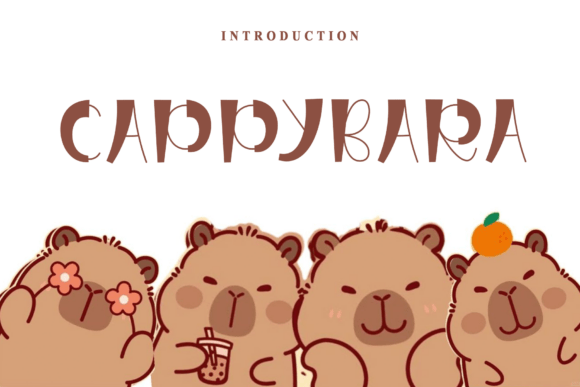
The Ultimate Guide to Cappybara Font: Elevate Your Designs with This Timeless Beauty
I’ll never forget the time I was working on a branding project for a trendy coffee shop. My client wanted a font that was both playful and sophisticated, but I was struggling to find the perfect fit. That’s when I stumbled upon Cappybara Font, and it instantly became my go-to choice. In this article, I’ll share my love for this lovely and timeless display font, its features, and how to make the most of it in your designs.
An Honest Review of Cappybara Font
Cappybara Font has won my heart with its unique and beautiful touch. Here’s what I love about it:
- ✨ Unique and beautiful letterforms that add a touch of elegance to any design
- ✅ Perfect for creating eye-catching logos, branding, and quotes
- 💫 Highly versatile and can be used for a wide range of design projects
- 👍 Easy to read and understand, even in large and small sizes
While Cappybara Font is a stunning font, it’s not without its quirks. Here are a few things to keep in mind:
- 🤔 Some letters may appear a bit narrow, which can affect readability in certain contexts
- ⚠️ Limited availability of stylistic alternates, which may limit design flexibility
The Backstory of Cappybara Font
Cappybara Font was designed with the intention of creating a timeless and elegant display font. The designer aimed to craft a font that would be both beautiful and versatile, suitable for a wide range of design projects. The result is a stunning font that adds a touch of sophistication to any design.
| Font Name | Cappybara Font |
| Author | Sansana |
| What is Cappybara Font best used for? | Cappybara Font is perfect for creating eye-catching logos, branding, and quotes. |
| Is Cappybara Font suitable for body text? | While Cappybara Font is a beautiful font, it’s best used as a display font. For body text, consider using a serif or sans-serif font. |
| Is Cappybara Font available in different styles? | Cappybara Font may have limited stylistic alternates. However, you can experiment with OpenType features to add visual interest to your design. |